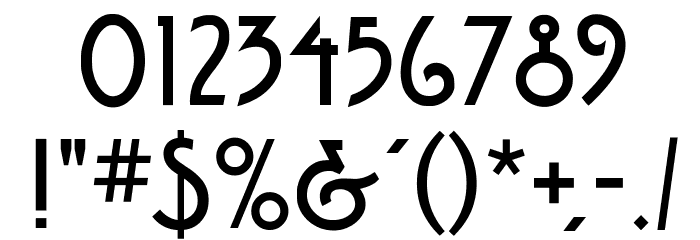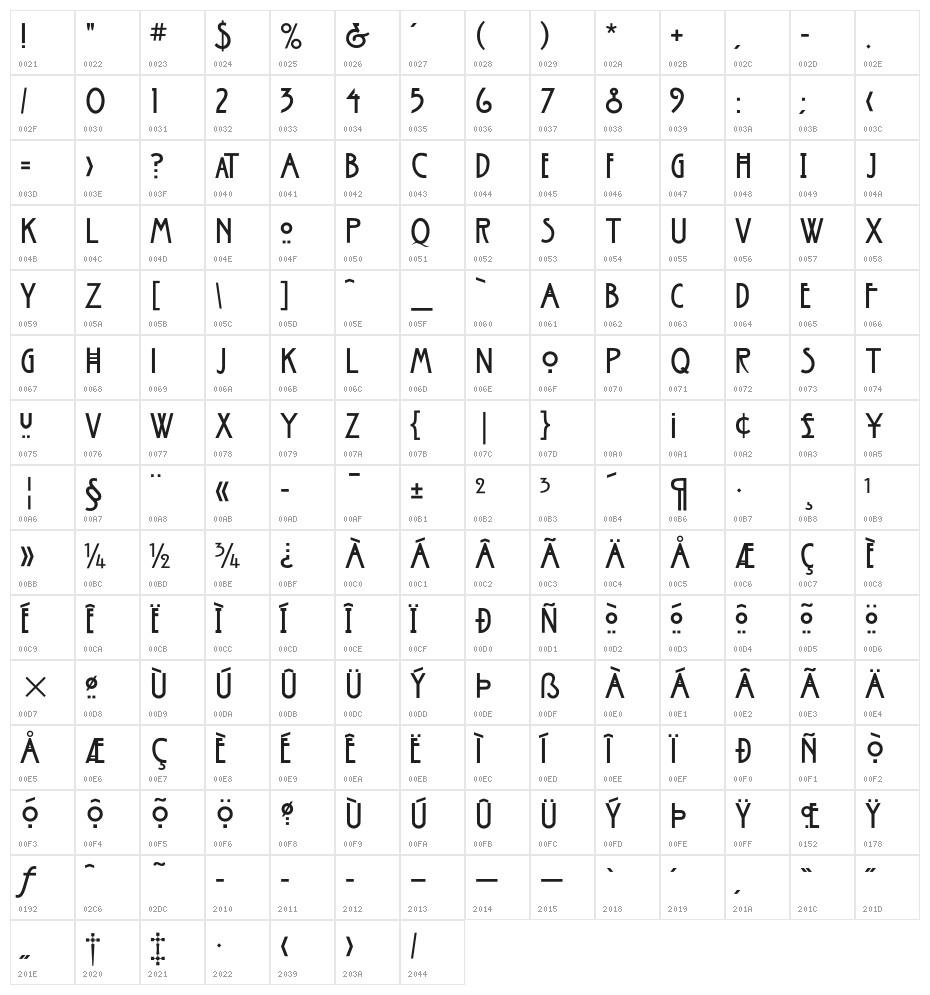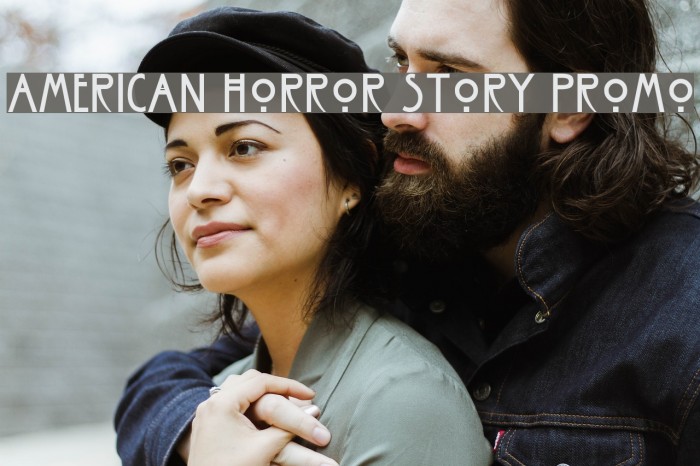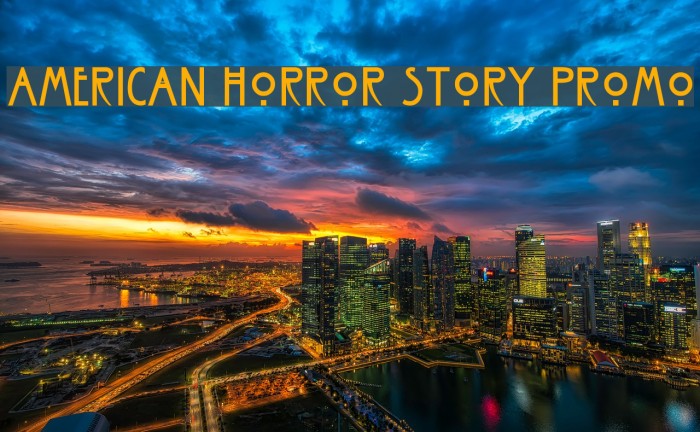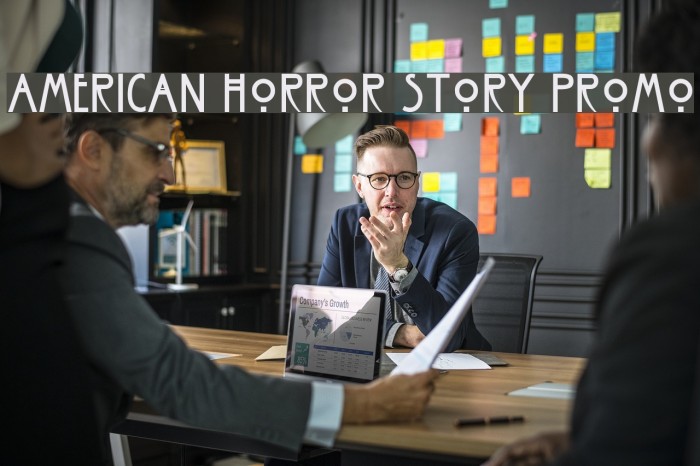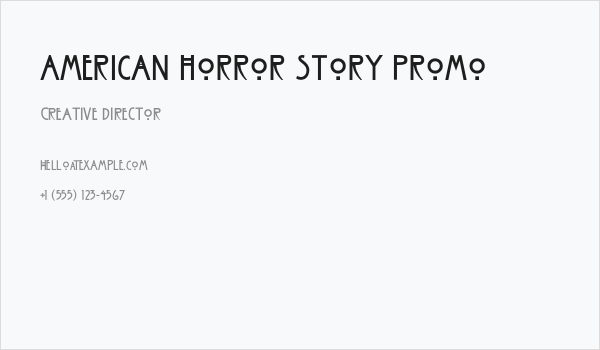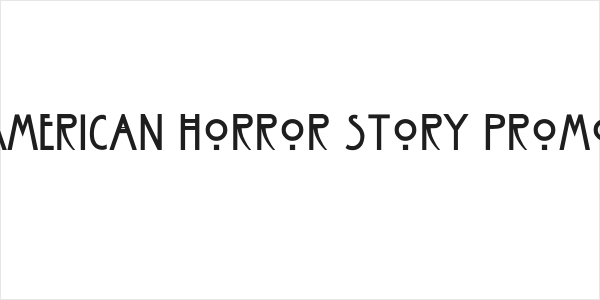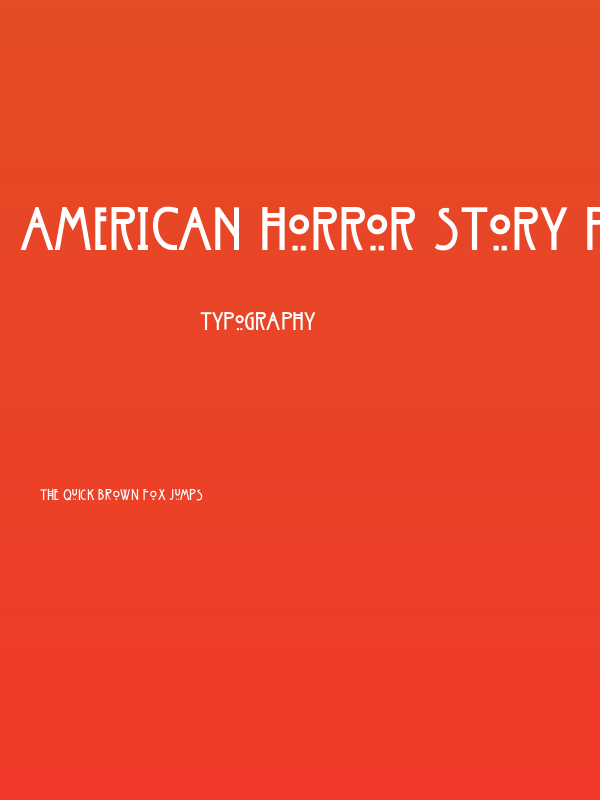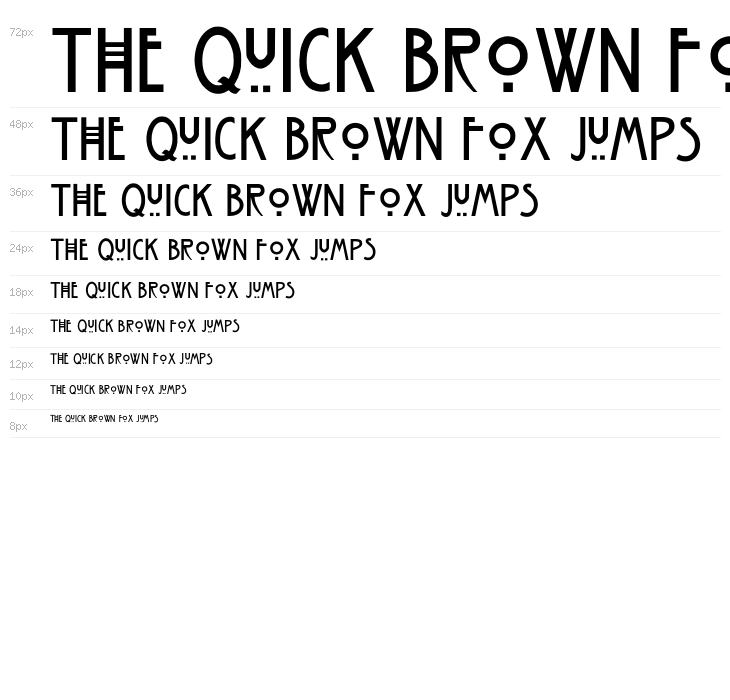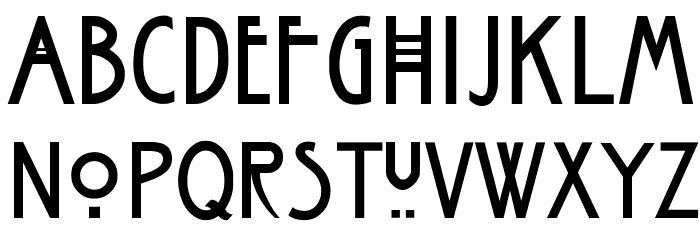
American Horror Story Promo Font
American Horror Story Promo Description
This font features a distinctive and eerie style, characterized by its sharp, elongated letterforms and unique geometric shapes. The uppercase letters are tall and narrow, with some characters like 'A' and 'M' having pointed apexes, adding to its dramatic appearance. The lowercase letters maintain a similar aesthetic, with consistent stroke widths and angular forms. Numbers are styled to match the overall theme, with a slightly unconventional look. Special characters are designed with the same attention to detail, ensuring a cohesive appearance across all glyphs. This font's unique style makes it ideal for creating a sense of mystery and intrigue.
| Proposed Projects | Ideal for horror-themed posters, movie titles, book covers, and branding that requires a mysterious or unsettling vibe. |